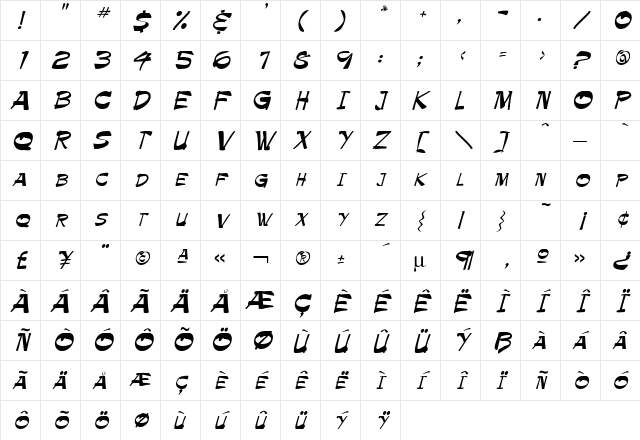
Krimpe Regular
Design Context for Krimpe
Krimpe is a composed and adaptable typeface that performs quietly and consistently across a wide range of design contexts.
Pro Tip: Use Krimpe in both headline and body roles to test its range before committing to a single application.